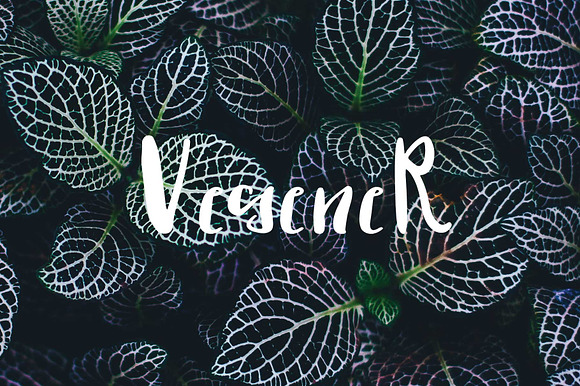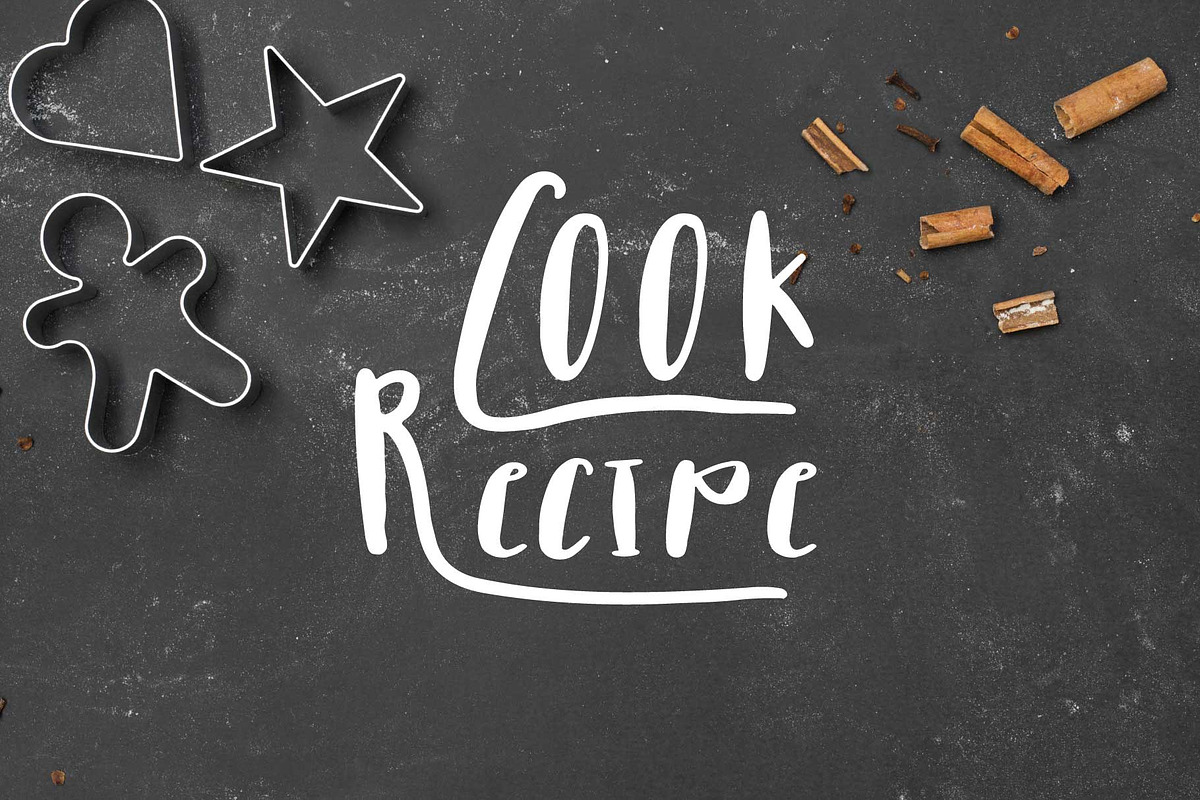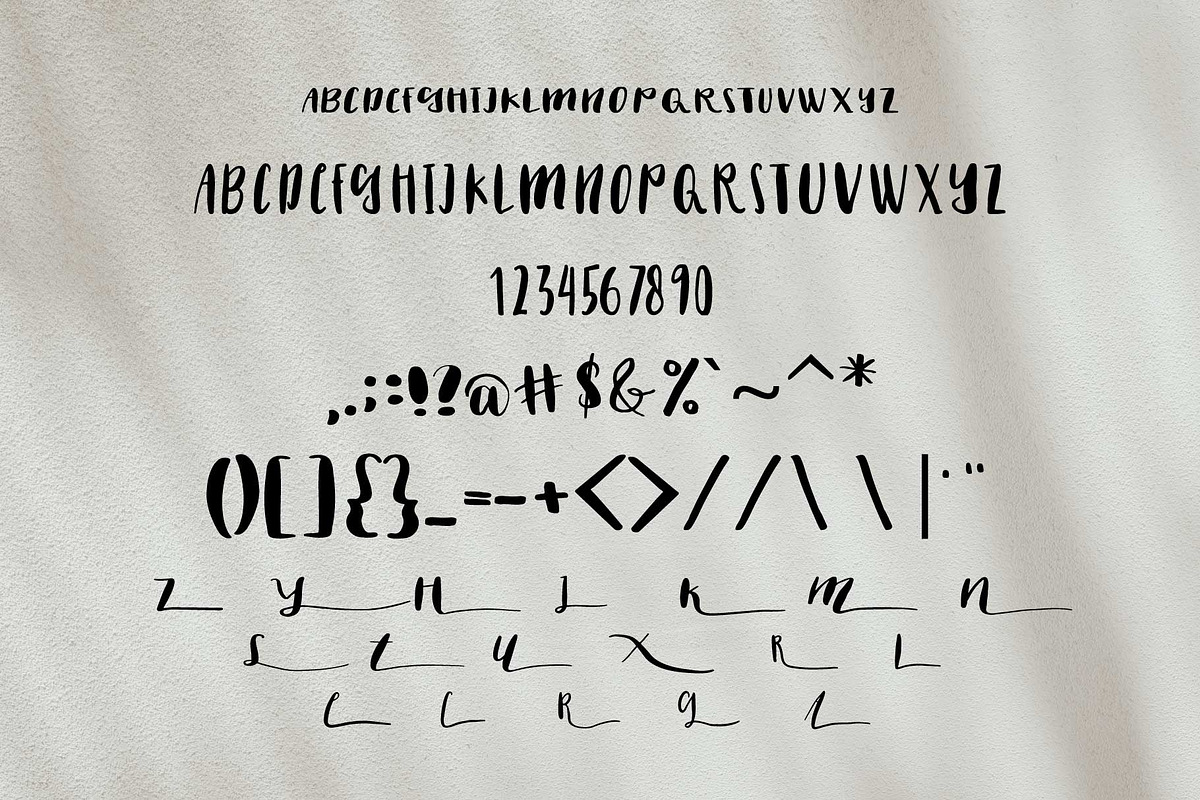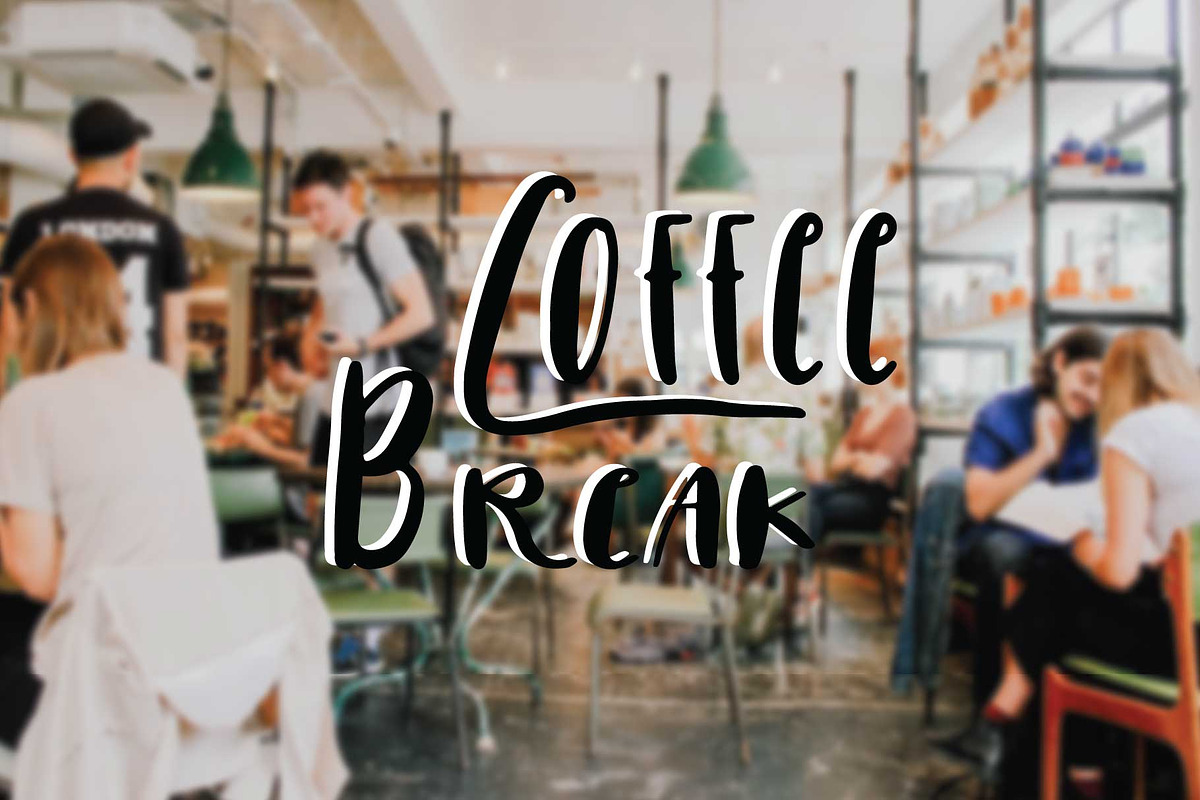
vegener font
Vegener Font by Goodigital13 is a font selected for branding, posters, packaging, typography.
Why vegener font is worth a look
vegener font by Mariyana fits naturally into Branding, posters, packaging, typography.